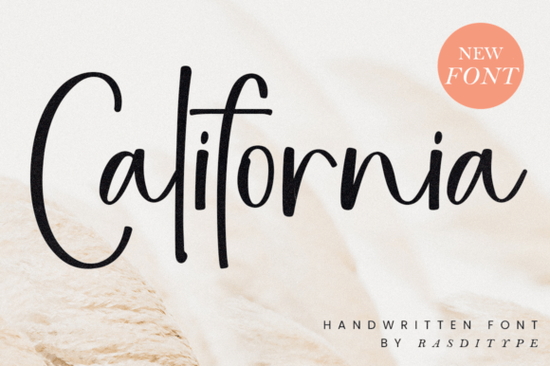
If you are looking for a handwritten font that feels personal but still clean enough for professional work, California Font is worth a close look. Designed for logos, wedding stationery, photography watermarks, and modern websites, it brings a natural hand-drawn feel without losing readability. Whether you are designing invitations or building a brand identity, this type of font can save you time while giving your project a polished, personal touch.
What makes this handwritten font different for wedding stationery?
Wedding stationery needs to feel special. Couples want invitations that look personal and elegant, not generic. California Font works well here because it strikes a balance between casual and refined. The letterforms are smooth and connected, which mimics natural handwriting without being messy. This makes it suitable for save-the-dates, ceremony programs, and thank-you cards.
If you are designing wedding suites, you might also check how Hello Font handles a similar style. It gives you another option for pairing or contrast when you need variety across different pieces.
Can you use this handwritten font for logo design and branding?
Yes, and this is where the font really shines. Small business owners and print-on-demand sellers often need a logo that feels approachable but still looks intentional. California Font gives that handmade appearance without looking rushed. The consistent stroke weight and balanced spacing help it work well on product labels, social media graphics, and website headers.
For branding projects, you might pair it with a clean sans-serif for contrast. If you need more handwriting options, the Mega Notebook Handwriting Bundle includes several script styles that complement this kind of aesthetic. It can save you time if you are building a full collection of designs.
How does California Font perform on modern websites?
Web designers often worry about handwritten fonts being hard to read on screens. California Font avoids that problem by keeping letterforms open and clear. It works for headlines, pull quotes, and even short body text if the size is large enough. Since it is a script font, it works best for accent text rather than long paragraphs. Use it for your hero section or call-to-action buttons to add a human touch to your layout.
If you are building a lifestyle blog or a creative portfolio, this font can help your site feel more personal without slowing down load times. You can also pair it with simpler typefaces to keep the layout easy to scan.
Using this font for photography watermarks
Photographers and content creators often need a watermark that looks like a signature. California Font works well for this because it reads as authentic handwriting. You can adjust the opacity and placement to protect your images while keeping them visually clean. It also works for social media watermarks and video thumbnails.
For a different signature-style option, Shina Qatline Font offers a similar handcrafted feel that might suit your brand if you want something slightly more decorative.
What other script fonts pair well with California Font?
If you are building a full design system, you might want a second script font for variety. California Font works well with simpler sans-serif fonts or with other handwritten styles that have a different weight. For example, the Beach Waves Duo Font includes both a script and a sans-serif, which gives you a ready-made pairing for projects that need hierarchy and contrast.
When pairing fonts, stick to one script and one neutral font to keep your design readable. Too many handwriting styles in one layout can feel chaotic. California Font itself is versatile enough to pair with many common web fonts.
Practical tips for print-on-demand sellers
If you sell on platforms like Printful, Redbubble, or Etsy, this font can help your products stand out. Here are some ideas:
- T-shirt designs: Use the font for short quotes or brand names. It reads well on fabric when printed at a moderate size. Keep the text centered and simple.
- Mugs and home decor: Handwritten fonts feel warm and personal. Use them for phrases like "Sunday mornings" or "Hello sunshine."
- Stationery sets: Pair California Font with simple borders or illustrations for notebook covers and greeting cards. It works nicely with minimalist line art.
- Social media templates: Use the font in your mockups to show customers how your product will look in real life. It helps build trust in your shop.
If you need more handwriting styles for your shop, the Mega Notebook Handwriting Bundle gives you a range of options without buying each font separately. This can be a smart move if you are testing different aesthetics.
Is California Font easy to use for beginners?
Yes. You do not need advanced design software experience to use it. California Font comes as a standard font file that works in most design tools like Canva, Adobe Illustrator, Photoshop, and Procreate. Simply install it on your computer or upload it to your design platform, and you can start typing right away. No special scripting or coding needed.
For designers who want a straightforward script font that works across print and digital, this is a solid choice. You can also find California Font on Creative Fabrica to check details like file formats and license options before downloading.
- Test the font at different sizes – see how it reads in your layout before finalizing.
- Pair it with a simple sans-serif font – this keeps your design balanced and readable.
- Use it for short text only – avoid long paragraphs in script fonts.